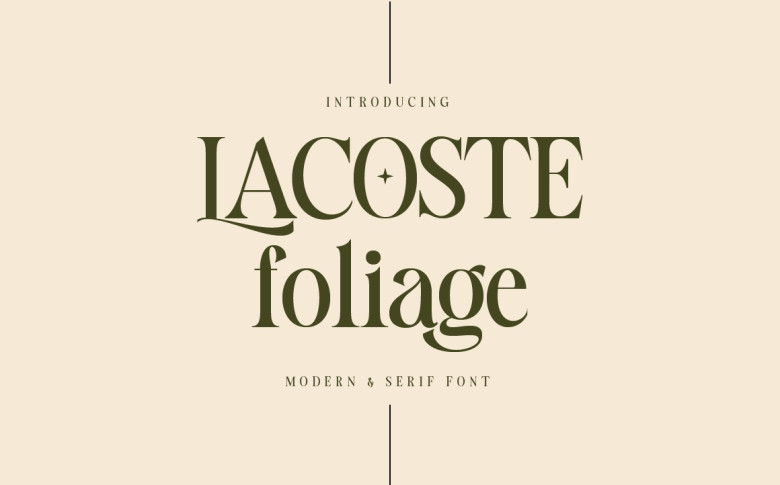
Lacoste Foliage Font
LACOSTE Foliage is a contemporary serif typeface with an appealing font. This customizable font stands out in any design concept and inding style, from feminine logos and editorial branding projects, design heads clothing branding, packaging magazines advertising T-shirts, postcards valentines posters invitations,
Lacoste Foliage Serif Font